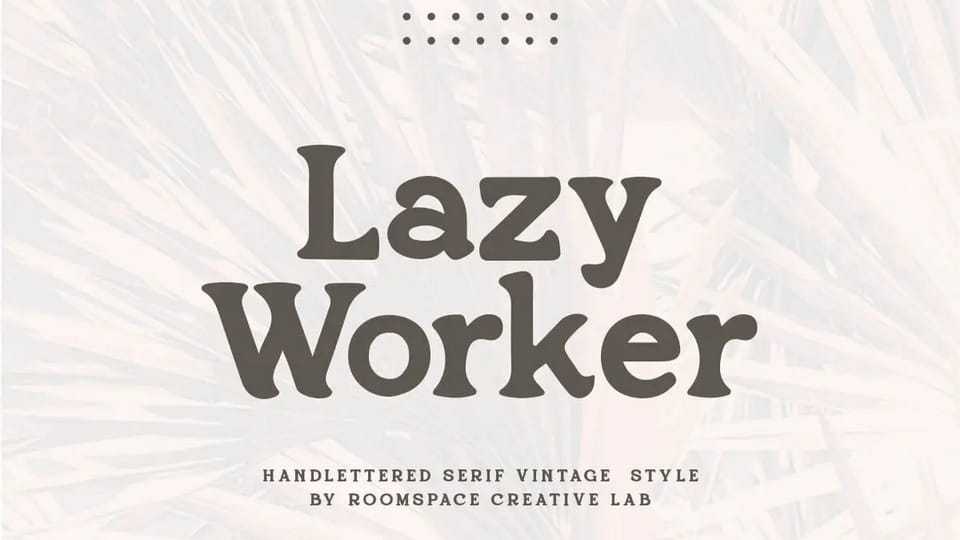
Download Lazy Worker font, a unique handwritten serif typeface that seamlessly blends modern and retro aesthetics. Crafted meticulously by hand, this font adds a personal touch to your design projects.